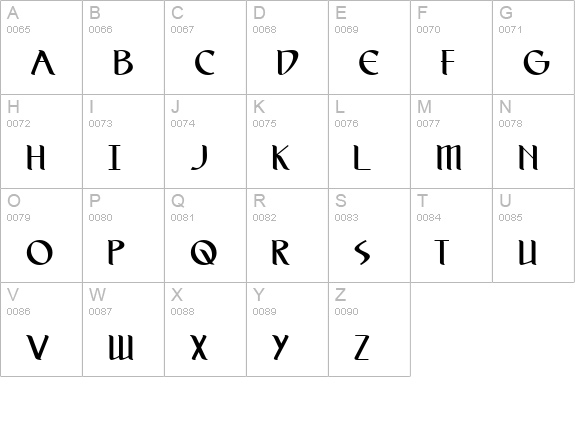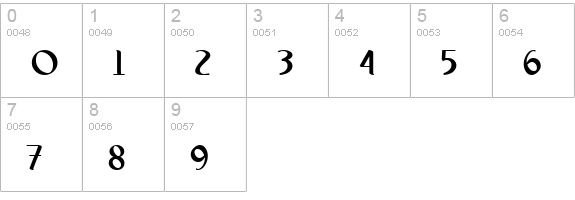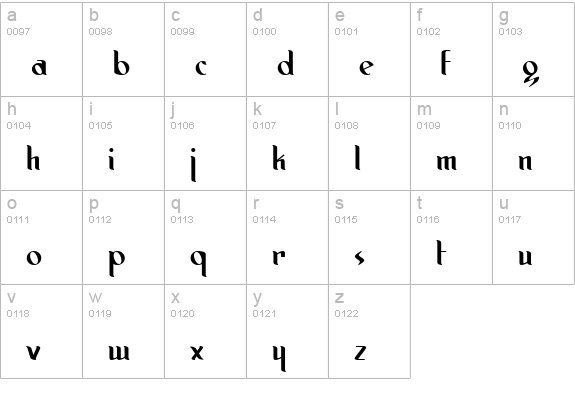
Spirit Medium is a balanced, medium-weight variant in the Spirit typeface family \xE2\x80\x94 well suited to sub-headlines, navigation, and balanced editorial work.
Introducing Spirit Medium, a captivating and ethereal font that takes typography to new heights. With its delicate curves and intricate details, Spirit Medium offers a harmonious balance between elegance and mystery. This font effortlessly captures the essence of the spiritual realm, making it perfect for any project that seeks to evoke a sense of enchantment and mysticism. With its versatile nature, Spirit Medium is an ideal choice for a wide range of design ventures. Whether you're creating captivating book covers, crafting spellbinding logos, or designing enchanting invitations, this font will infuse your work with a touch of otherworldly charm. One of the most remarkable aspects of Spirit Medium is that it is freely available to download at FontsMarket.com. This means that you can harness the power of this extraordinary font without any cost. FontsMarket.com offers a vast array of high-quality fonts, and Spirit Medium is a shining gem in its collection. Embrace the power of Spirit Medium and let your creativity soar to new heights. With its free availability and undeniable allure, there's no reason not to dive into the enchanting world of this captivating font. So, download Spirit Medium today from FontsMarket.com and unlock the secret to captivating design.